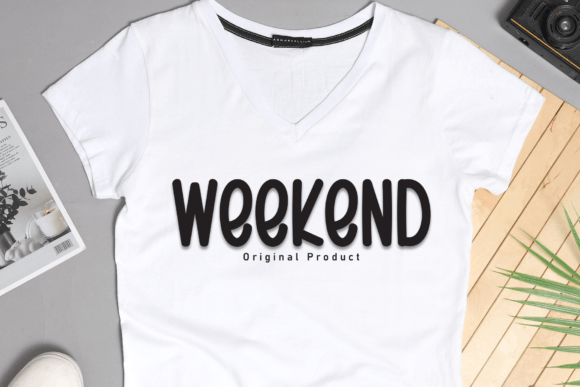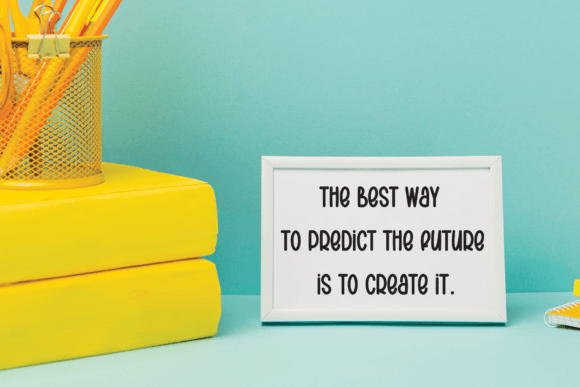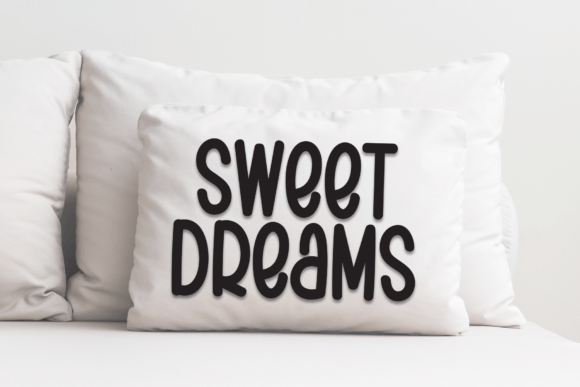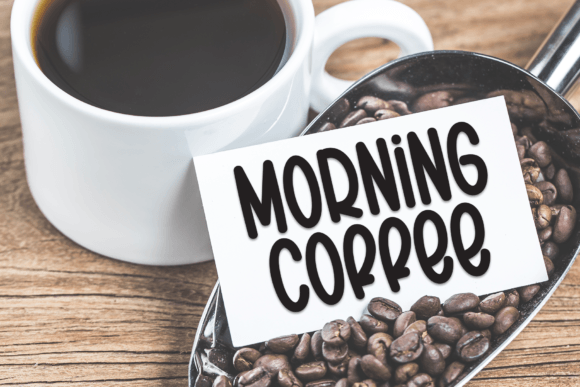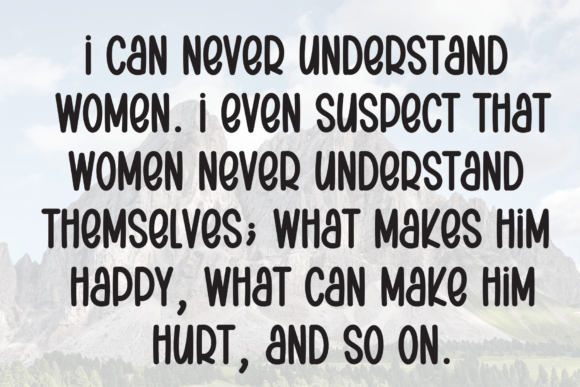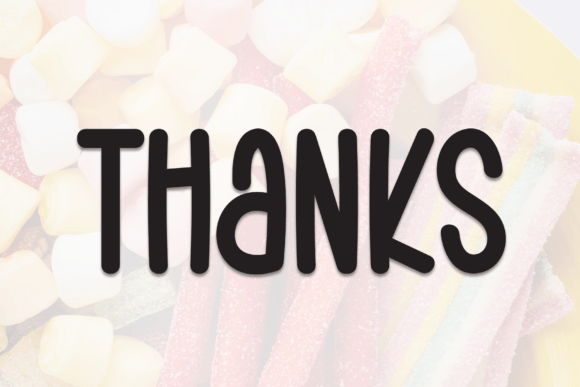
The Sweetest Addition to Your Design Arsenal: Candy Land Font
Have you ever stared at a blank canvas, waiting for inspiration to strike? That’s where I was when I stumbled upon the enchanting Candy Land Font. Its whimsical charm and playful feel instantly sparked a creative spark within me. I couldn’t wait to dive in and explore the endless possibilities it had to offer.
As a designer, you’re always on the lookout for the perfect font to elevate your projects. That’s where Candy Land Font comes in – a sweet and friendly handwritten font that’s as versatile as it is charming. Its natural and unique style makes it incredibly fitting to a wide range of designs, limited only by your imagination.
With Candy Land Font in your design toolkit, you’ll be able to create designs that are as sweet as they are effective. Whether you’re working on a children’s book, a food brand, or a fun advertisement, this font is sure to bring a smile to your clients’ faces.
Candy Land Font Key Features
• Unique Hand-Drawn Design: The Candy Land font features a distinctive hand-drawn design, reminiscent of classic children’s illustrations.
Candy Land Font Review
Candy Land Font is a delightful, whimsical font designed to evoke the nostalgia and magic of the classic board game. Here are my honest thoughts:
• Candy Land Font has a unique, hand-drawn feel that’s perfect for creating a playful atmosphere.
• The font is highly customizable, allowing you to adjust the size, color, and style to fit your needs.
• The font includes a wide range of characters, including numbers, letters, and symbols.
• The font may be too playful or childish for certain designs or applications.
• The font’s lack of clarity and readability in certain sizes may make it difficult to use for body text.
• The font’s limitations in terms of language support may make it unsuitable for global designs.
Candy Land Font is a fun, creative font that’s perfect for adding a touch of whimsy to your designs. While it may have some limitations, it’s a great choice for projects that require a playful, nostalgic feel. Just be sure to use it thoughtfully and in moderation to avoid overwhelming your audience.
Tips for Getting the Most Out of the Candy Land Font
Use the Candy Land Font for whimsical and playful designs.
Pair the font with bright and bold colors to create a visually appealing design.
Experiment with different font sizes and styles to add emphasis and hierarchy to your design.
The Candy Land Font is commonly used for:
Children’s party invitations and decorations.
Playful marketing materials and advertisements.
Whimsical blog posts and social media graphics.
Alternatives to Candy Land Font
Great Vibes is a whimsical, handwritten font perfect for creating a playful and carefree atmosphere. It’s ideal for designs that require a touch of magic and fantasy, such as children’s books, party invitations, and advertisements for amusement parks.
Compared to Candy Land Font, Great Vibes has a more organic and fluid feel, with irregular letterforms that add to its charm. It’s a great choice for designers who want to evoke a sense of wonder and enchantment in their designs.